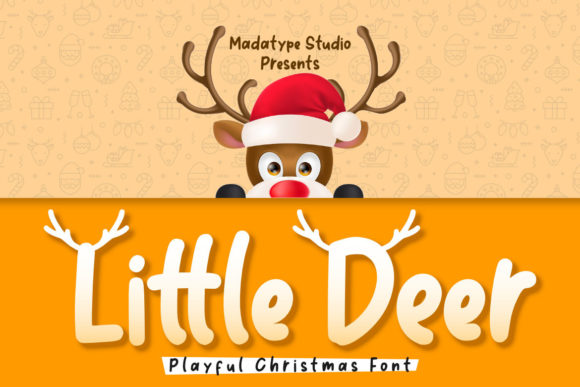
Dive into a whimsical world of aesthetics with Little Deer Font - the enchanting display font that's making waves in minimalist design. Step into the realm of artistic expression with this captivating font, crafted to bring life and charm to your creative endeavors.
Little Deer Font offers an extraordinary collection of deer-themed characters, each crafted with intricate detail and playful spirit. Unleash your creativity and weave these enchanting characters into gorgeous logos that capture the essence of magic and whimsy. Envision the allure of personalized mugs, notebooks, or t-shirts adorned with these delightful deer designs.
Journey beyond the ordinary and explore the boundless possibilities of stationary art. Let your imagination run wild as you create enchanting invitations, greeting cards, and planners that exude a touch of whimsy and warmth. Little Deer Font empowers you to craft personalized stationary that beckons curiosity and sparks joy.
Embark on a voyage of visual storytelling on social media. Design eye-catching posts and stories that captivate your audience, inviting them to engage with your brand's unique charm. Little Deer Font's playful characters lend themselves perfectly to creating thumb-stopping graphics, alluring advertisements, and unforgettable online experiences.
And when the holiday season's magic fills the air, let Little Deer Font guide you in designing heartwarming greeting cards. Spread cheer and warmth with cards that embrace the spirit of joy, love, and togetherness. Little Deer Font's endearing deer characters will add an extra layer of charm to your heartfelt messages, making each card a cherished keepsake.